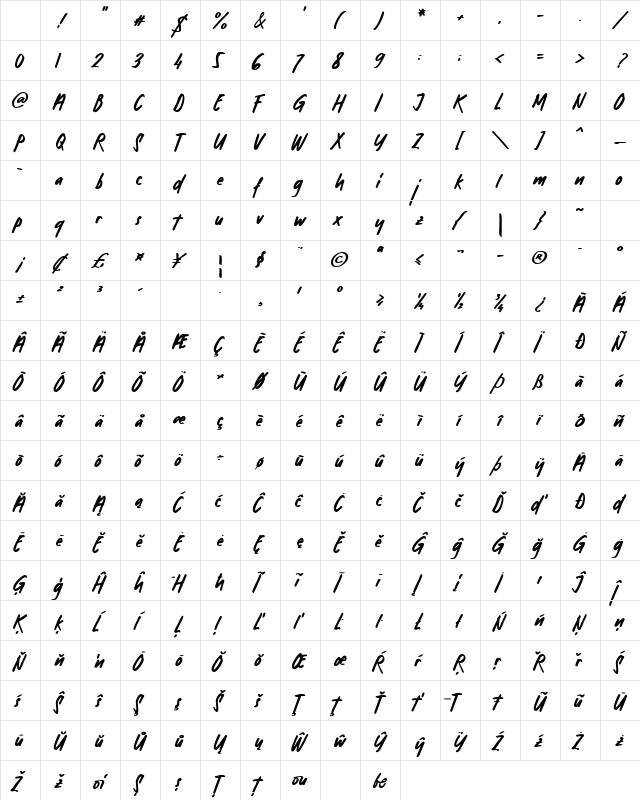
Youthink is a composed and adaptable typeface that performs quietly and consistently across a wide range of design contexts. Its slender proportions lend an understated elegance to any composition.